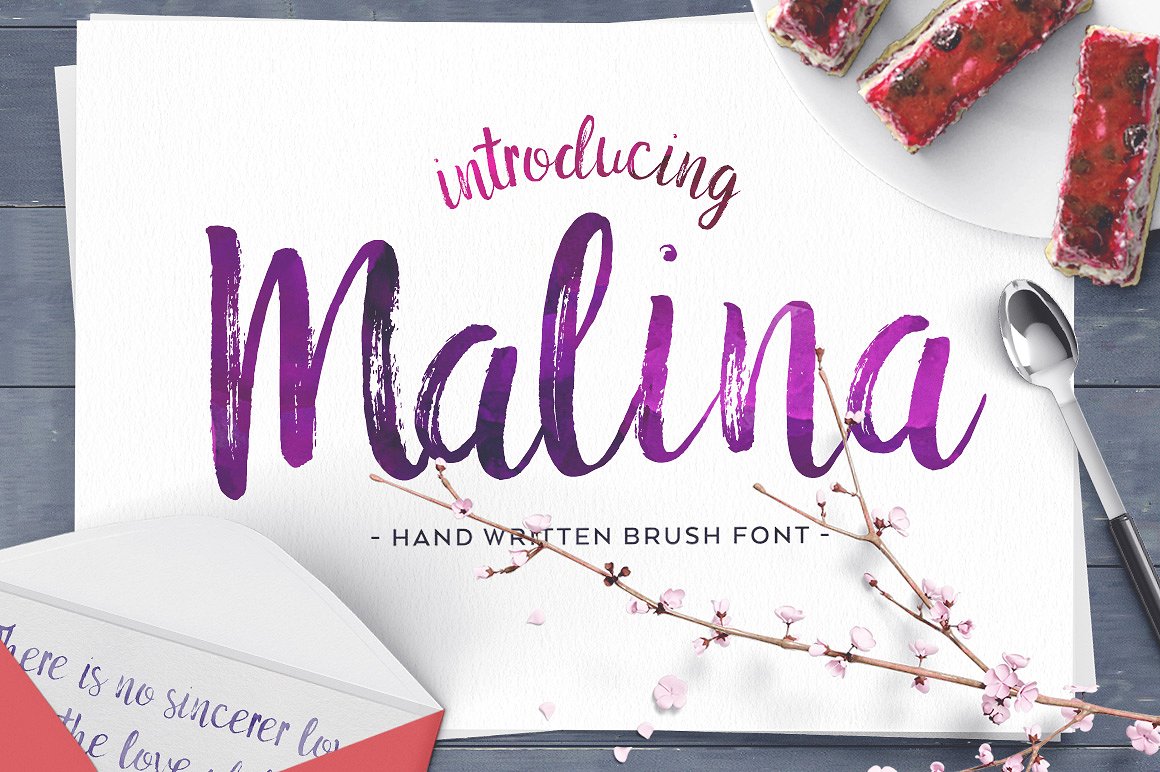
Malina Script Font
Malina Brush Font is a hand brushed font with multilingual support. Malina is ideal for restaurant menus, greeting cards, invitations, weddings and many more. It is created with dry ink brush.
| Designer Name: | Ivan Rosenberg |
| Classification: | Brush Fonts, Script Fonts |